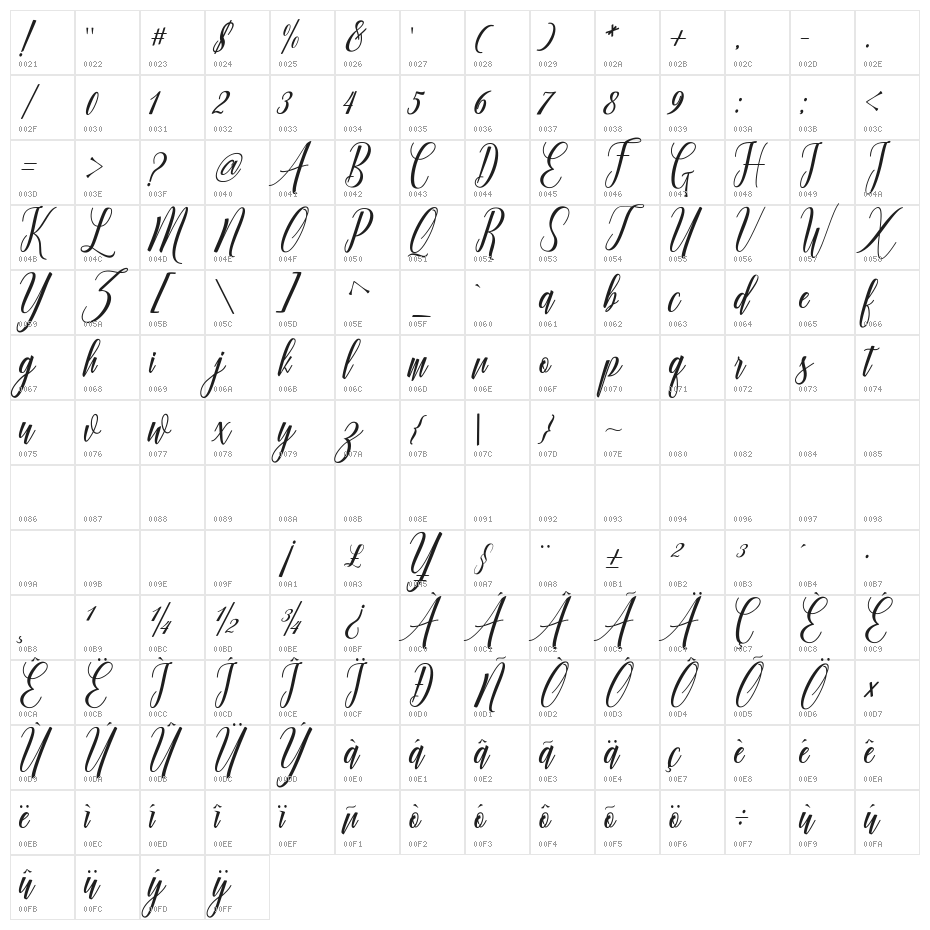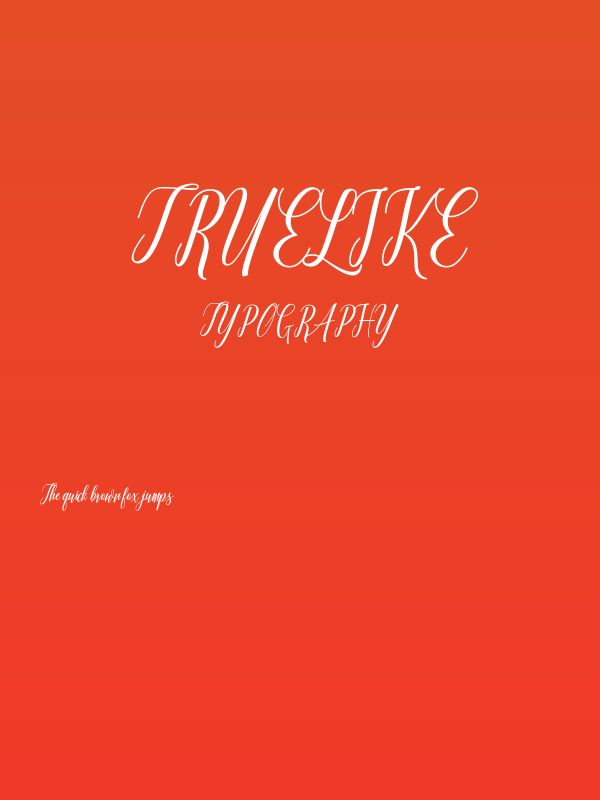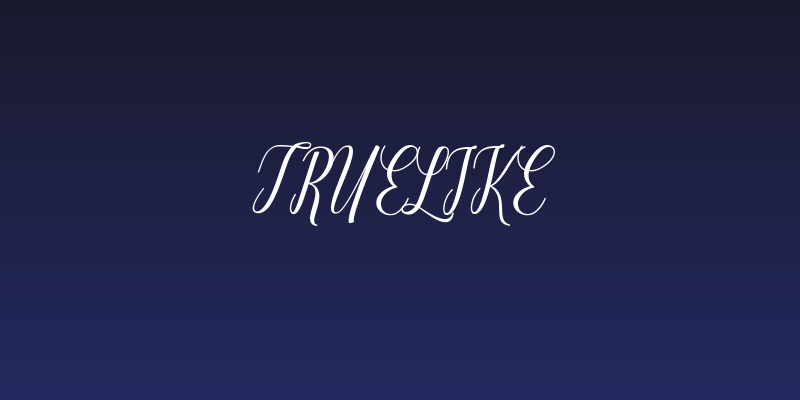
Truelike Font
Truelike Description
This elegant script font features a flowing, cursive style with a modern twist. The uppercase letters are tall and slender, with graceful curves and a slight slant, giving them a sophisticated appearance. The lowercase letters maintain a consistent flow, with smooth connections between each character, enhancing readability while retaining an artistic flair. The numerals are designed to match the overall aesthetic, with a balanced mix of curves and straight lines. Special characters are thoughtfully integrated, maintaining the font's cohesive look. This font exudes a sense of elegance and creativity, making it suitable for a variety of design projects.
| Proposed Projects | Ideal for wedding invitations, branding, greeting cards, and elegant packaging designs. |